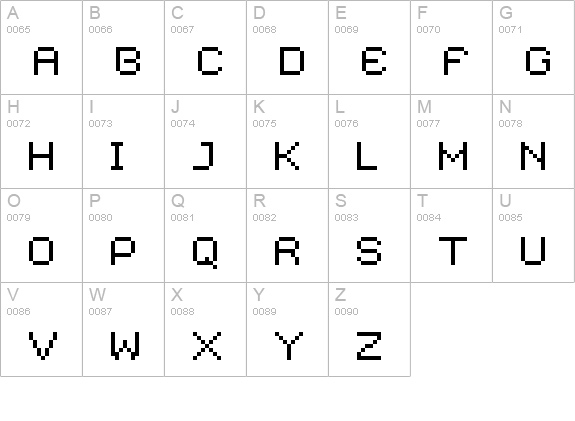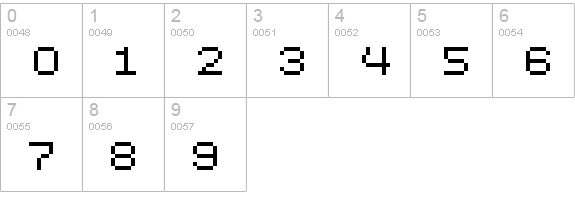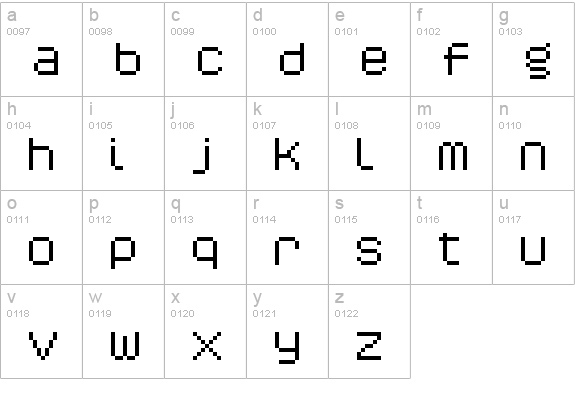
Caliper Wide is a distinctive, extended-width variant in the Caliper typeface family \xE2\x80\x94 well suited to design and typography projects.
Caliper Wide font is a versatile and modern typeface that exudes sophistication and elegance. With its sleek lines and wide letterforms, this font is perfect for making a bold statement in any design project. Whether you're creating a logo, poster, or website, Caliper Wide font will add a touch of class and professionalism. The best part? Caliper Wide font is available for free download at FontsMarket.com. So you can easily access this stunning font and elevate your designs without breaking the bank. Don't miss out on this opportunity to enhance your work with the timeless appeal of Caliper Wide font.